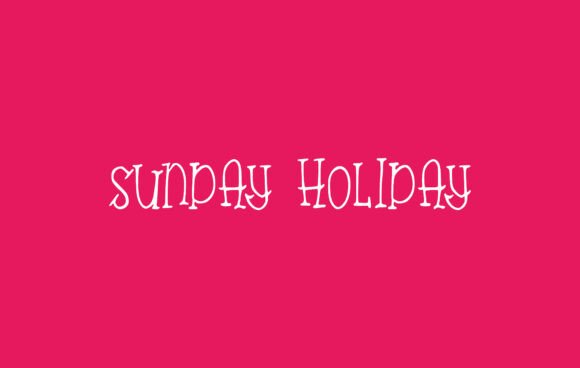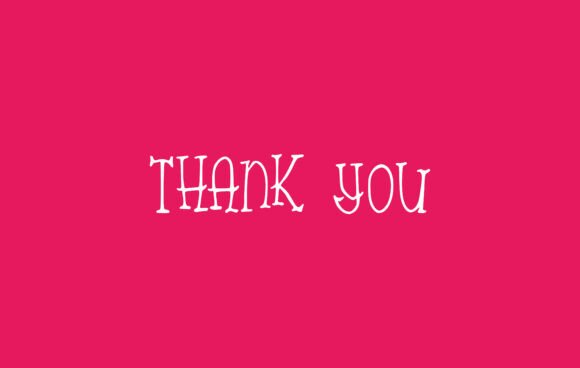
Cybertrace Font: Elevate Your Designs with a Romantic Handwritten Touch
In the world of typography, fonts play a crucial role in conveying the tone and personality of a design. For designers and crafters looking to add a touch of romance and elegance to their projects, the Cybertrace font is an excellent choice. This authentic handwritten font is expertly designed to capture the hearts of audiences and take creative ideas to new heights.
The Charm of Cybertrace Font
Cybertrace font boasts a unique blend of classic handwriting and modern flair, making it a versatile and captivating choice for various design applications. Its romantic touch is perfect for creating visually stunning and emotive designs that resonate with viewers. Whether you’re working on magazine headlines, social media graphics, branding materials, wedding invitations, or cards, this font is sure to impress.
Key Features of Cybertrace Font
- Legibility: One of the standout features of Cybertrace font is its exceptional legibility. This makes it an excellent choice for both title and body text, ensuring that your message is conveyed clearly and effectively.
- Versatility: The font’s flexibility allows it to be used across a wide range of design projects, from digital media to print materials.
- Authentic Handwritten Feel: The authentic handwritten style of Cybertrace font adds a personal touch to any design, making it more relatable and engaging.
- Elegance and Sophistication: The romantic touch infused in the font gives it an air of elegance and sophistication, perfect for designs that require a refined aesthetic.
Design Applications for Cybertrace Font
The versatility of Cybertrace font makes it suitable for a myriad of design projects. Here are some of the areas where this font truly shines:
Magazine Headlines and Editorials
For magazine and editorial designs, Cybertrace font can add a touch of elegance and sophistication to headlines and article titles. Its unique style can help magazines stand out on crowded newsstands or digital platforms.
Social Media Graphics
In the realm of social media, where visuals are king, Cybertrace font can help create engaging and shareable content. Whether it’s a Facebook post, an Instagram story, or a Twitter header, this font can elevate your social media graphics.
Branding and Logo Design
For brands looking to establish a strong visual identity, Cybertrace font offers a distinctive and memorable style. Its handwritten feel can add a personal and approachable touch to a brand’s logo and marketing materials.
Wedding Invitations and Stationery
Cybertrace font’s romantic and elegant style makes it an ideal choice for wedding invitations, stationery, and other related designs. It can help set the tone for a beautiful and memorable wedding celebration.
Cards and Greeting Messages
For designers creating cards and greeting messages, Cybertrace font offers a charming and heartfelt way to express sentiments. Whether it’s a birthday, anniversary, or holiday card, this font can add a special touch.
Cybertrace font is a beautiful and versatile handwritten font that can elevate a wide range of design projects. Its romantic touch, combined with its legibility and versatility, makes it a valuable asset for designers and crafters. Whether you’re working on a commercial project or a personal endeavor, Cybertrace font has the potential to bring your creative ideas to life in a stylish and impactful way.
In conclusion, Cybertrace font stands out as a unique and captivating choice for designers looking to add a romantic and elegant touch to their projects. Its versatility, legibility, and authentic handwritten feel make it an excellent addition to any design toolkit.